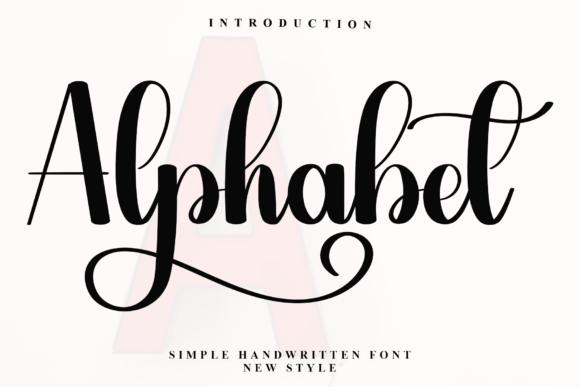
The Charm of Alphabet Font: A Designer’s New Best Friend
I still remember the time I was working on a project for a client’s wedding invitation. I had all the design elements in place – the beautiful floral pattern, the elegant layout, and the perfect color scheme. But something was missing. The font I was using just didn’t feel right. It was too formal, too perfect, and it didn’t capture the warmth and personality that the client wanted to convey. That’s when I stumbled upon Alphabet Font, and it was love at first sight! ✨
So, what makes Alphabet Font so special? Let’s dive into the good stuff and a few quirks I’ve discovered. 😊
• ✨ Warm and Inviting: Alphabet Font has a charming handwritten style that exudes warmth and personality. It’s like adding a personal touch to your design.
• ✅ Playful yet Legible: The font is playful, yet still easy to read. This makes it perfect for a variety of projects, from greeting cards to branding.
• 💕 Handmade Authenticity: The natural strokes and irregularities in Alphabet Font give it a handmade feel that’s hard to replicate with digital fonts.
• 🤔 Limited Use in Small Sizes: Alphabet Font can get a bit tricky to read in very small sizes. It’s best used in larger sizes where its charm can shine.
• ⚠️ Not Suitable for All Formal Projects: While it’s versatile, Alphabet Font might not be the best fit for very formal projects or those requiring a more traditional look.
The Story Behind Alphabet Font
Alphabet Font was inspired by the art of handwriting and the joy of creating something by hand. The designer aimed to capture the essence of handmade authenticity in a digital font, perfect for those looking to add a personal touch to their projects.
Q: What type of projects is Alphabet Font best suited for?
Alphabet Font is perfect for greeting cards, invitations, branding, and any project where you want to add a personal, handmade touch.